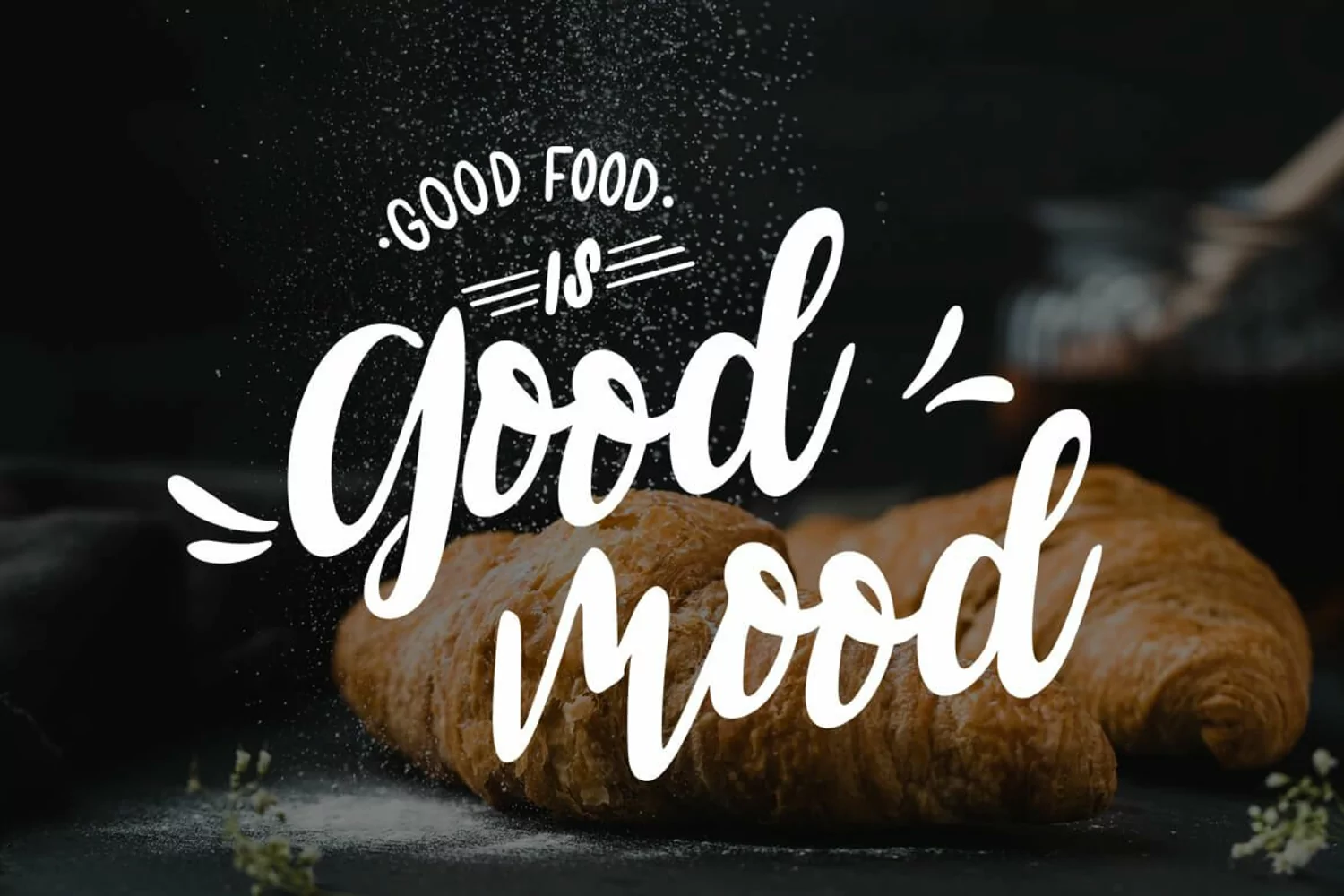
Haglos - Bold Script Font
Roullasse is awesome delicious bold script font with feels equally charming and elegant. It looks stunning on wedding invitations, thank you cards, quotes, greeting cards, logos, business cards and every other design which needs a handwritten touch.
This font is PUA encoded which means you can access all of the glyphs and swashes with ease! It features a varying baseline, smooth lines, gorgeous glyphs and stunning alternates.